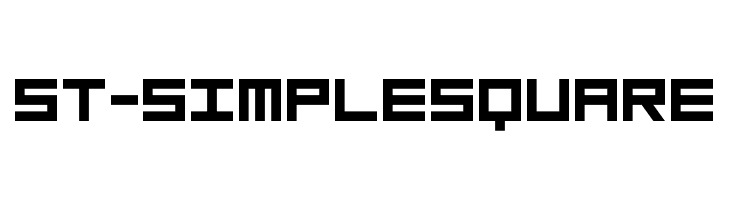
A bold, geometric font with a modern, futuristic style.
A bold, geometric font with a futuristic and industrial style.
A bold, pixelated font with a geometric, digital aesthetic.